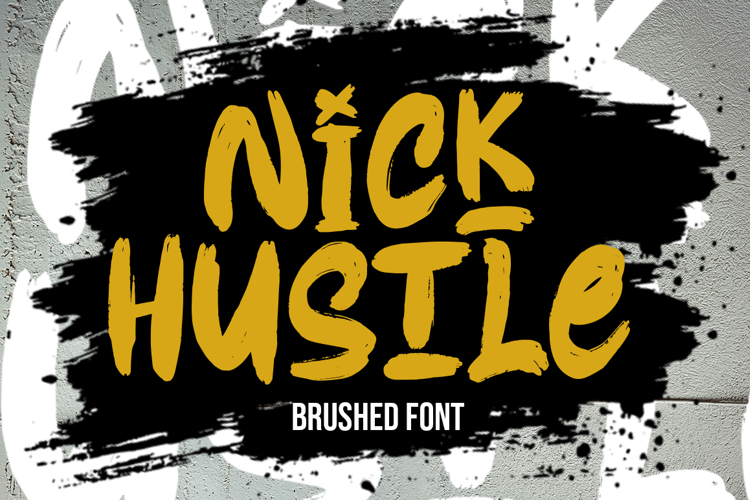
Nick Hustle is a bold, urban-style brush font that blends the power and energy of authentic hand-lettering. Each stroke carries strong brush textures, delivering a fearless and distinctive look. This font comes in two styles — Regular for a solid and highly legible appearance, and Slant for a more dynamic, fast-moving feel. Perfect for posters, branding, merchandise, album covers, streetwear designs, and any creative project that needs an artistic, rebellious edge.